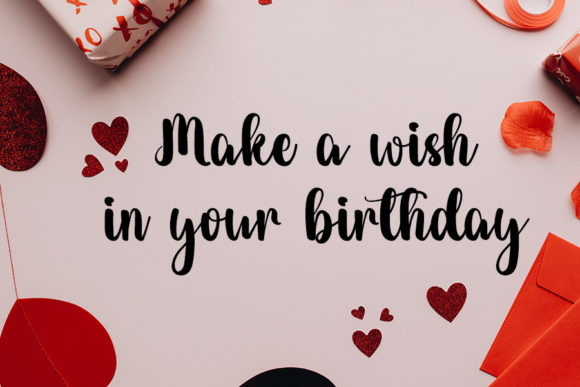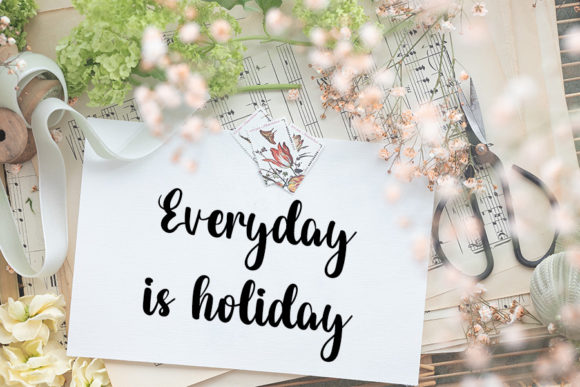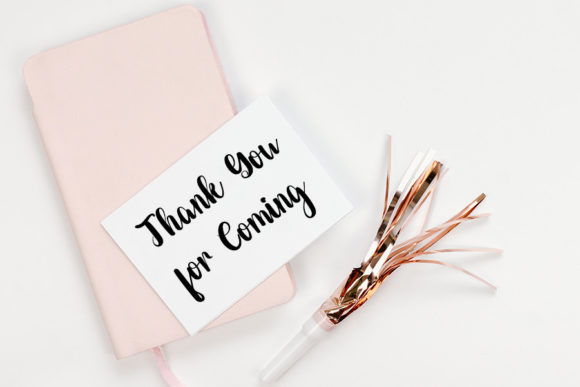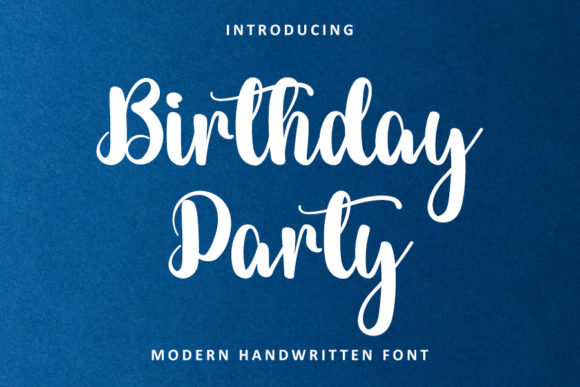
Introducing Birthday Party Font: Elevate Your Designs with a Touch of Elegance
Are you on the hunt for a font that adds a dash of sophistication and whimsy to your designs? Look no further than the Birthday Party font, a stylish handwritten typeface that brings a contemporary atmosphere and impeccable form to your projects. Inspired by timeless classic calligraphy, this balanced and varied font is designed to enhance the beauty of your creations, making them truly unforgettable.
The Inspiration Behind Birthday Party Font
Birthday Party font draws its inspiration from the elegance of classic calligraphy, a style that has been cherished for centuries for its beauty and precision. The creators of this font have skillfully blended traditional calligraphic elements with modern sensibilities, resulting in a typeface that feels both nostalgic and refreshingly contemporary. This fusion of old and new gives Birthday Party font its unique charm, making it an excellent choice for designers looking to add a touch of class to their work.
Key Features of Birthday Party Font
So, what makes Birthday Party font stand out from the crowd? Here are some of its key features:
- Handwritten with a Personal Touch: Birthday Party font boasts a beautifully handwritten style that adds a personal and intimate feel to any project. Its strokes are fluid and natural, giving it a warmth that digital fonts often lack.
- Contemporary Atmosphere: Despite its classic inspiration, Birthday Party font has a distinctly modern feel. Its clean lines and balanced proportions make it perfect for use in a wide range of design applications, from digital media to print.
- Impeccable Form: One of the hallmarks of a great font is its ability to convey a message clearly and beautifully. Birthday Party font excels in this regard, with each character meticulously designed to contribute to the overall aesthetic of your project.
- Balanced and Varied: Variety is key to keeping a design engaging, and Birthday Party font delivers. With a range of weights and styles, you can use this font to create visual hierarchy and add depth to your designs.
Use Cases for Birthday Party Font
The versatility of Birthday Party font makes it suitable for a multitude of design projects. Here are some ideas to get you started:
- Wedding and Event Invitations: Add a touch of elegance to your wedding or event invitations with Birthday Party font. Its classic yet modern style is sure to impress your guests.
- Branding and Logo Design: For businesses looking to convey a sense of sophistication and approachability, Birthday Party font can be a great choice for branding and logo design.
- Stationery and Greeting Cards: Whether you’re designing custom stationery or greeting cards, this font can help you create beautiful and memorable pieces.
- Digital Media: From social media graphics to website headers, Birthday Party font can add a touch of personality and style to your digital content.
Tips for Using Birthday Party Font Effectively
To make the most of Birthday Party font, consider the following tips:
- Pair it with Contrasting Fonts: For maximum impact, pair Birthday Party font with a contrasting font. A simple sans serif font can provide a nice balance to the elegance of Birthday Party.
- Experiment with Colors: Don’t be afraid to experiment with different colors. While the font itself is quite versatile, the right color choice can further enhance its beauty.
- Pay Attention to Spacing: Good typography is not just about the font itself but also about how it’s used. Pay attention to spacing and ensure that your text is easy to read.
Birthday Party font is a stylish and versatile typeface that can elevate your designs to new heights. With its classic inspiration, modern sensibility, and impeccable form, it’s an excellent choice for designers and crafters looking to add a touch of elegance and whimsy to their projects. Whether you’re working on a wedding invitation, a brand identity, or digital media, Birthday Party font is sure to make your designs stand out.